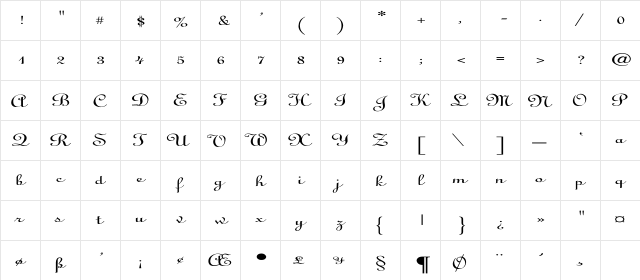
Linoscript-Light Ex Regular
Design Context for Linoscript-Light Ex Typeface
Linoscript-Light Ex brings a calligraphic fluidity to the page — its connecting strokes and expressive curves give it an unmistakably human quality. The delicate stroke weight brings airiness and refinement to layouts.
Font Pairing: Combine Linoscript-Light Ex with a simple geometric sans for maximum contrast — the tension between flowing curves and clean structure is a classic typographic pairing.
Pro Tip: Use Linoscript-Light Ex for short runs of text — names, titles, or taglines. Extended body copy in script faces tires the eye quickly.